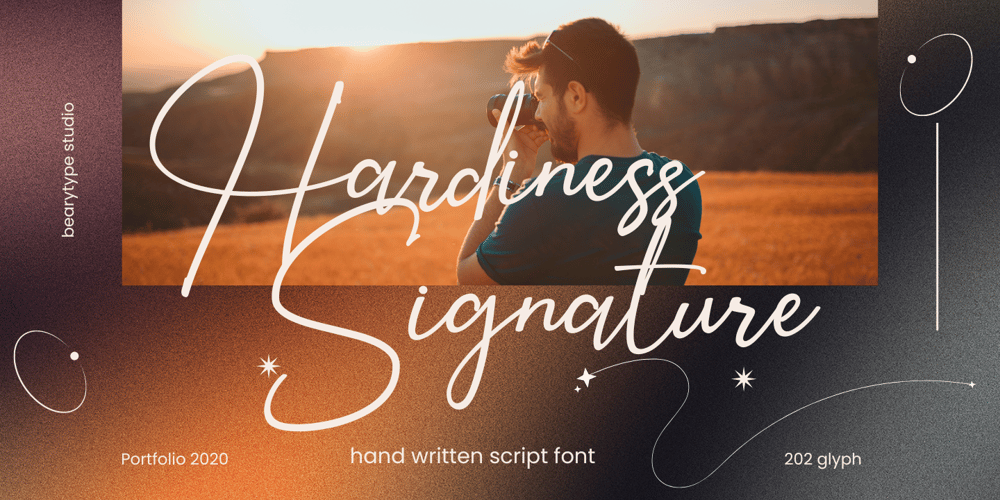
Hardiness Font Family was designed by Dian Haniffan Hadi and published by Beary. Hardiness contains 1 styles and family package options. Hardiness is an amazing hand lettered font. Every single letter have been carefully crafted to make your text looks beautiful. This font is suitable for invitations, branding, advertising, classic design, poster design, and more. This font is PUA encoded so you can access extras from character map in most design software.